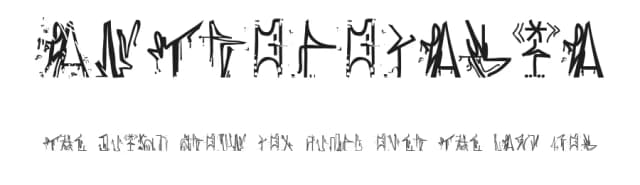
About Violent Desire Font
VIOLENT DESIRE is an edgy hand-made font which packs a punch - great for handwritten notes, album covers, movie posters & more! Includes our standard commercial license which can be found at
Violent Desire Specifications
| Font Family | Violent Desire |
| Full Name | VIOLENT DESIRE |
| Glyph Count | 233 glyphs |
| PostScript Name | VIOLENTDESIRE |
| Designer | Set Sail Studios |
Violent Desire Font is a script font that shines as a display or heading face. Pair it with a clean sans-serif or serif font for body text β the contrast creates a clear hierarchy while the two styles stay balanced and easy to read.